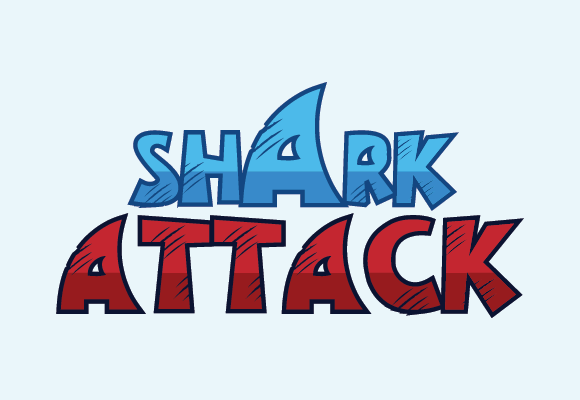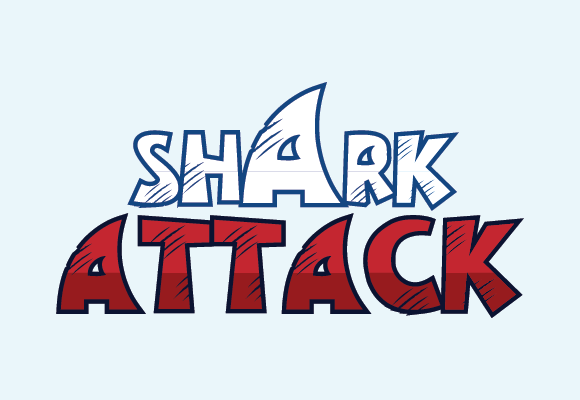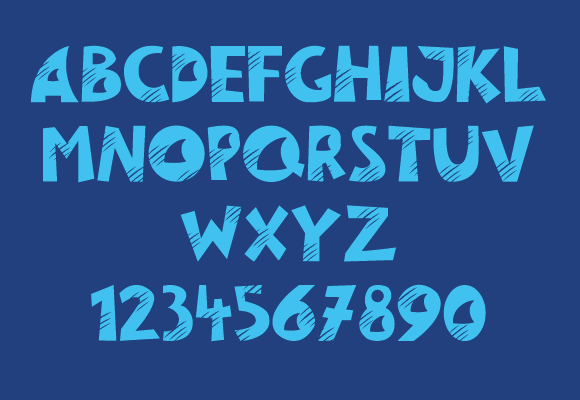
Shark Attack Font
Shark Attack is a cool and modern sans-serif font. Add it confidently to your creative projects and notice how it makes them stand out from the crowd. This font is made for Shark lovers and Fish/ocean lovers. You can use this font for your creative projects like T-shirts, poster banners, wall art, logos, and many more projects that you want to live.